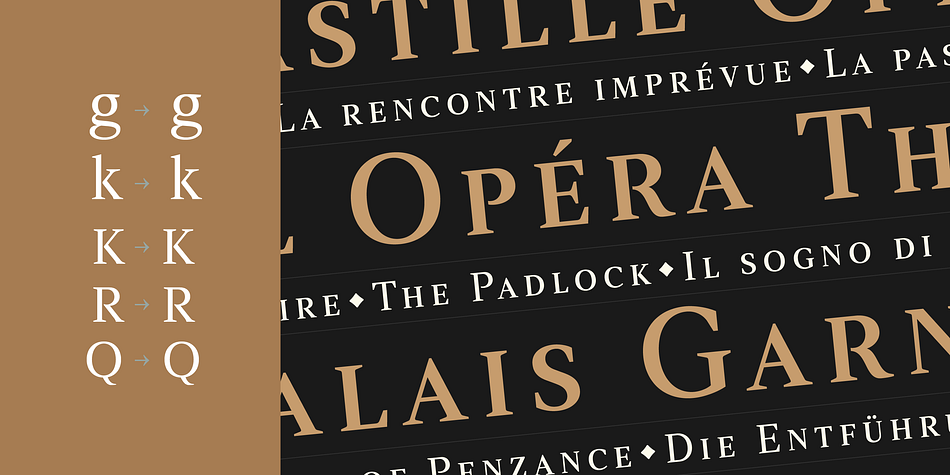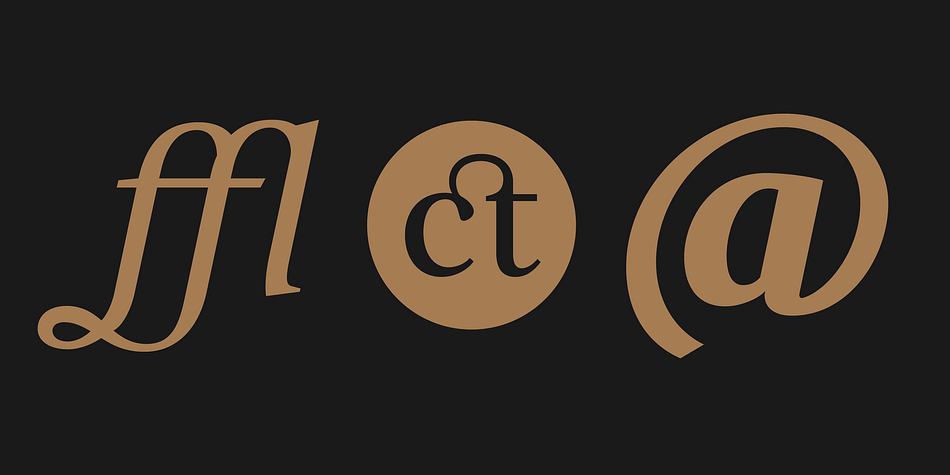
Strato Pro
Strato Pro is a display serif, serif and dingbat font family. This typeface has sixteen styles and was published by Mostardesign.
Strato Pro is a transitional serif typeface that elegantly blends tradition and modernity. With its well-balanced proportions and finely sculpted serifs, it ensures optimal readability across both print and digital media. Inspired by 18th-century typefaces, it incorporates a contemporary touch that gives it a unique character.
Designed for discerning typographers, Strato Pro offers a rich array of advanced features, including small caps, carefully crafted ligatures, and a set of refined ornaments. Its stylistic versatility makes it an ideal choice for publishing, branding, and editorial design, bringing timeless sophistication to any project.